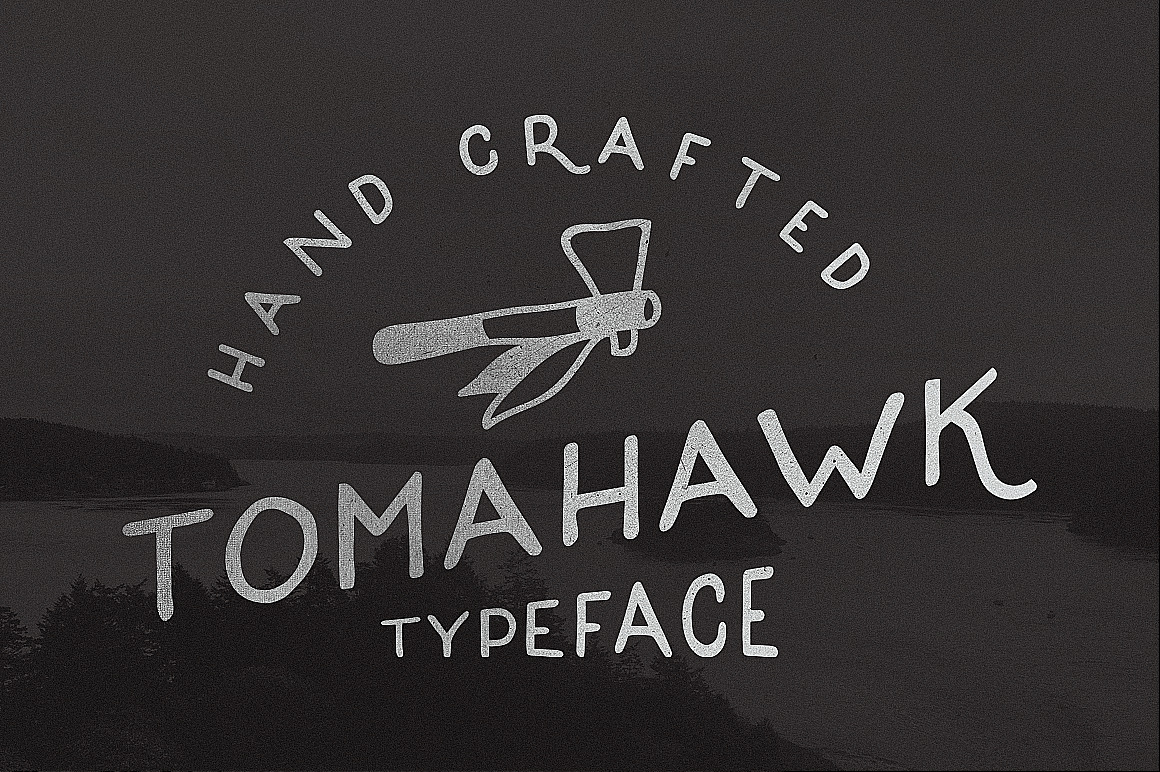
Tomahawk — Vintage Font
Inspired by vintage sign, native americans, rustic works and folk. This is my font 16th a nice and oldie typeface to create amazing and trendy logotypes (e.g. Check image 3 & 4). Tons of possibilities and combinations for this font.
Lets get your vintage/modern imagination play with it!